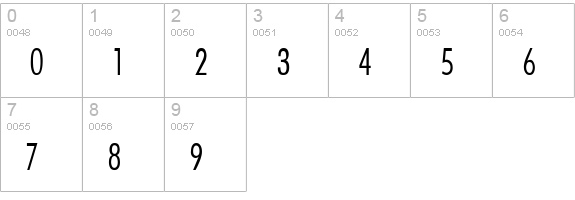
Belmar-CondensedLight-Thin Font Details
Belmar-CondensedLight-Thin is a delicate, low-contrast variant in the Belmar typeface family \xE2\x80\x94 well suited to fashion editorial, minimal branding, and high-contrast display.
Belmar-CondensedLight-Thin is a sleek and modern font that exudes elegance and sophistication. With its thin, condensed letterforms, this font is perfect for creating a minimalist and contemporary look in your designs. The clean lines and sharp angles of Belmar-CondensedLight-Thin make it ideal for a variety of applications, from branding and advertising to editorial design and web graphics. What sets Belmar-CondensedLight-Thin apart is not only its stylish appearance but also the fact that it is available for free download at FontsMarket.com. This means that you can easily access this high-quality font and use it in your projects without any cost. Whether you're a professional designer looking for a versatile typeface or a student working on a school project, Belmar-CondensedLight-Thin is a fantastic choice that won't put a dent in your budget. Download Belmar-CondensedLight-Thin today from FontsMarket.com and elevate your designs with this beautiful and freely available font.